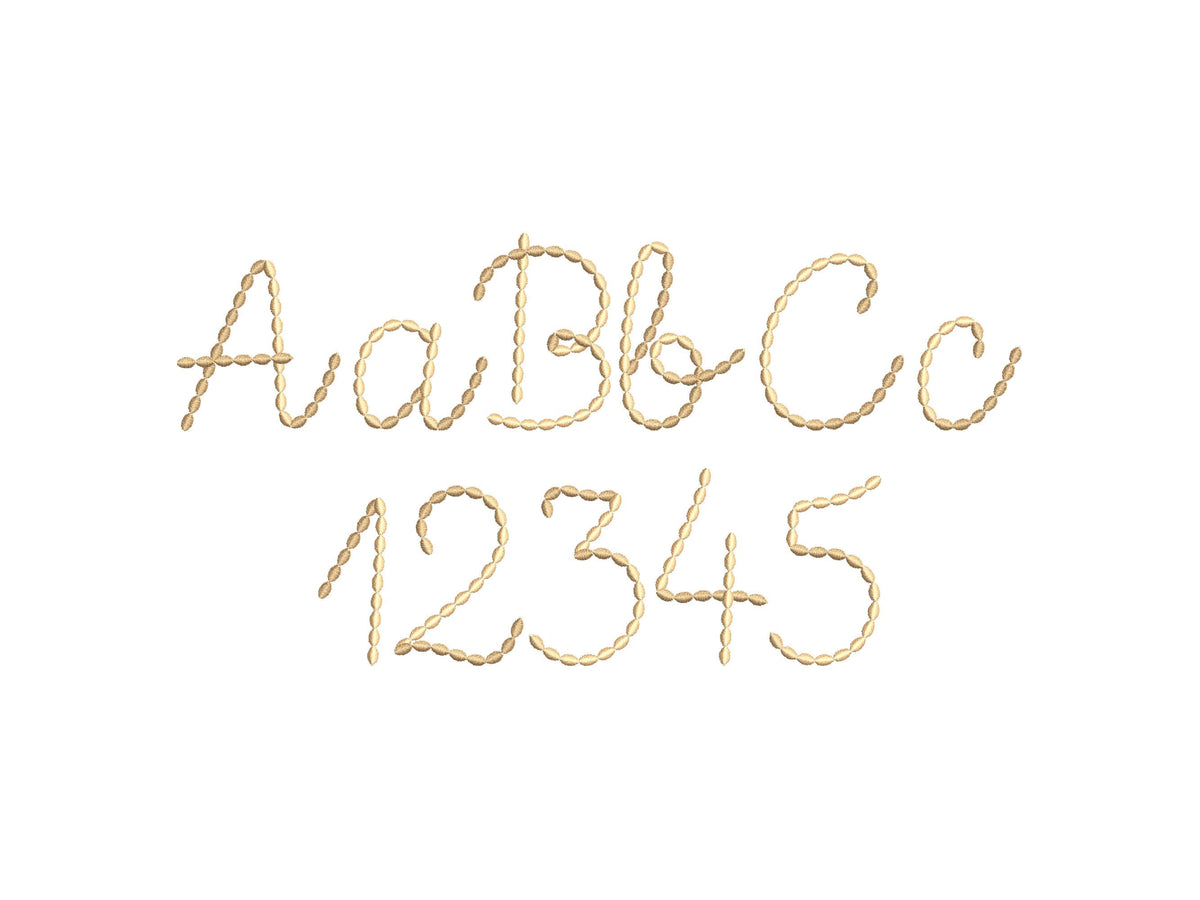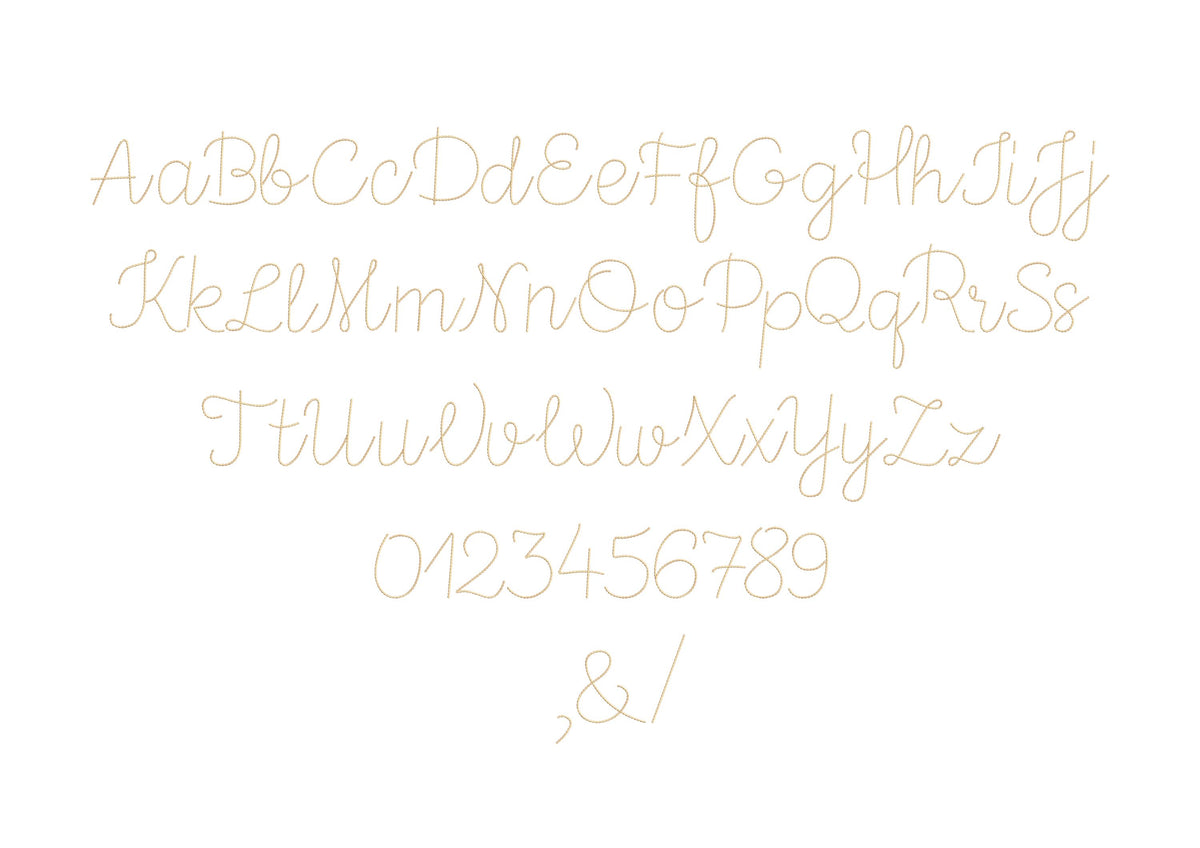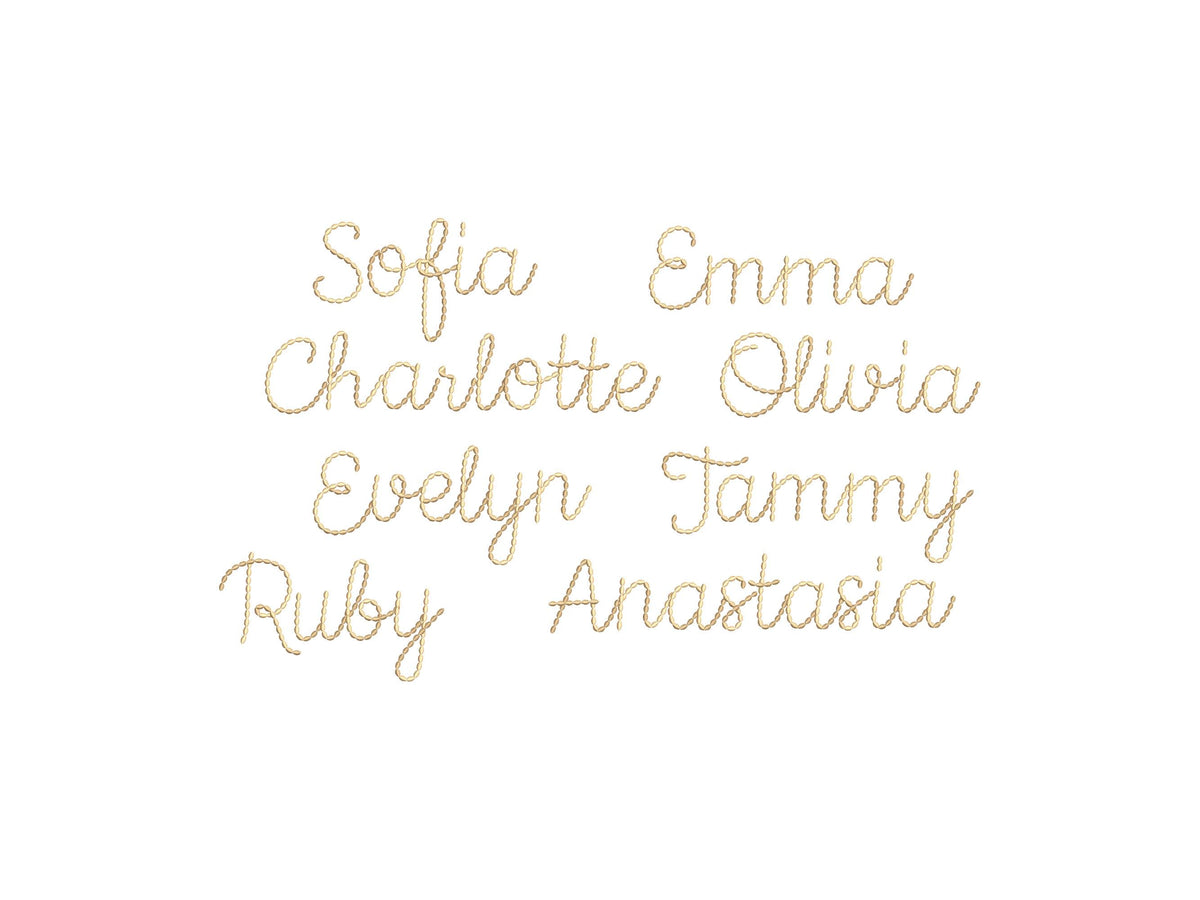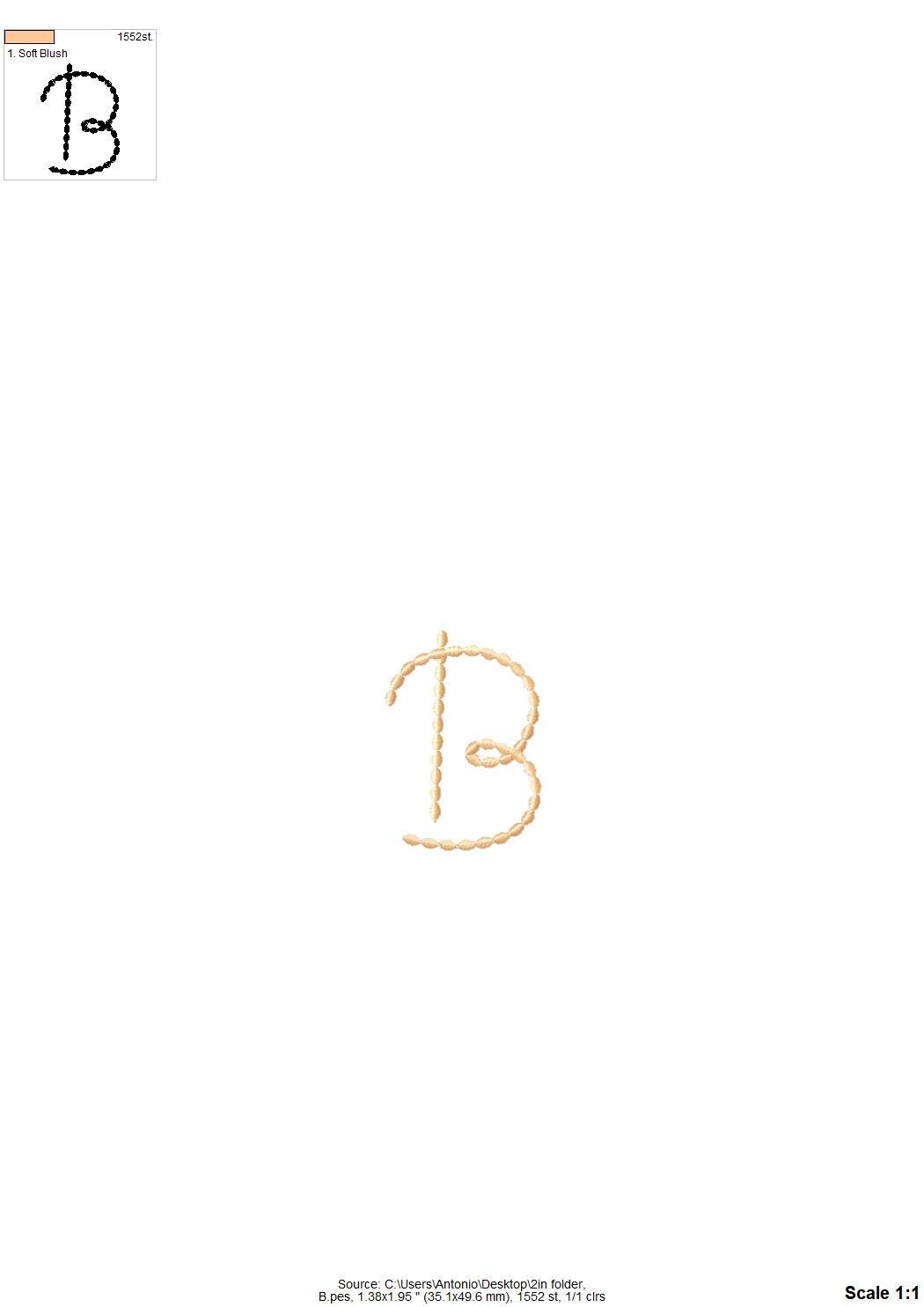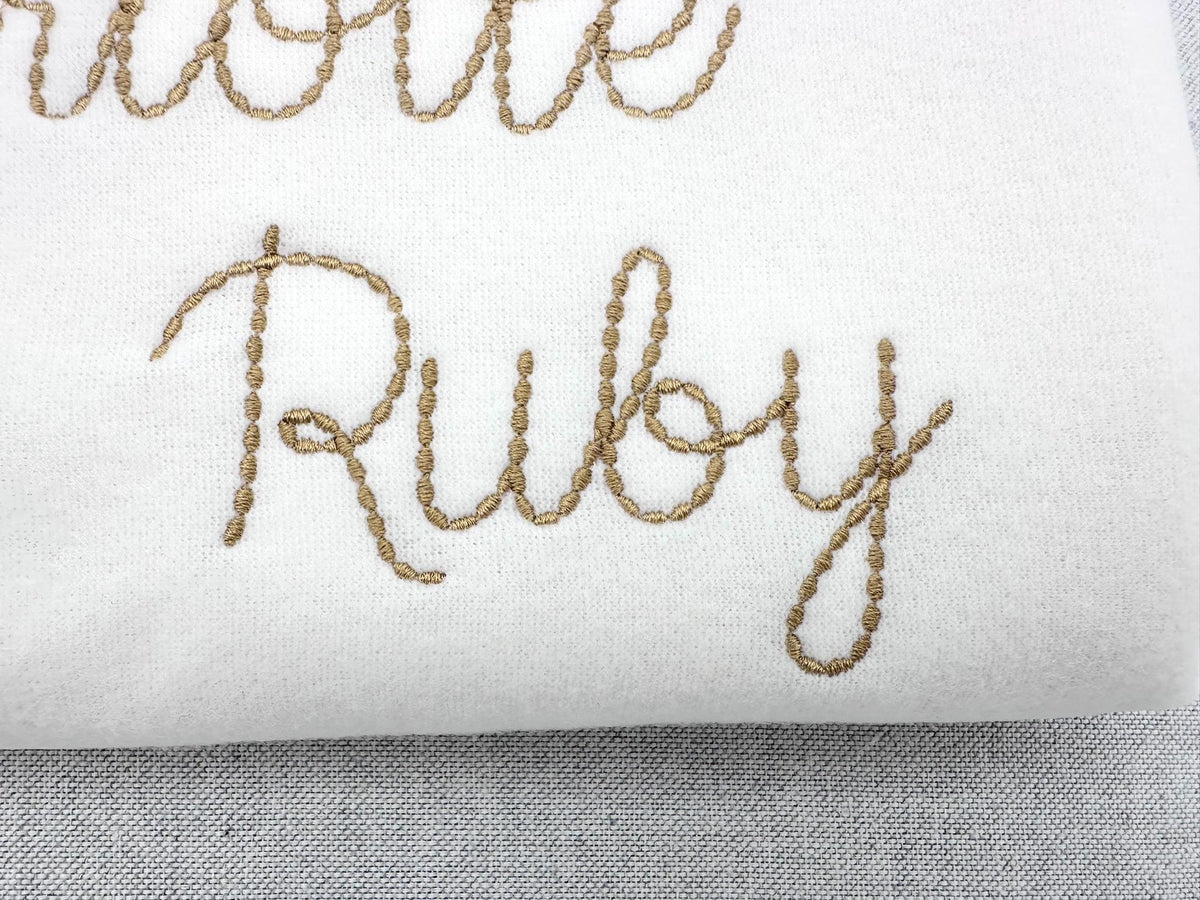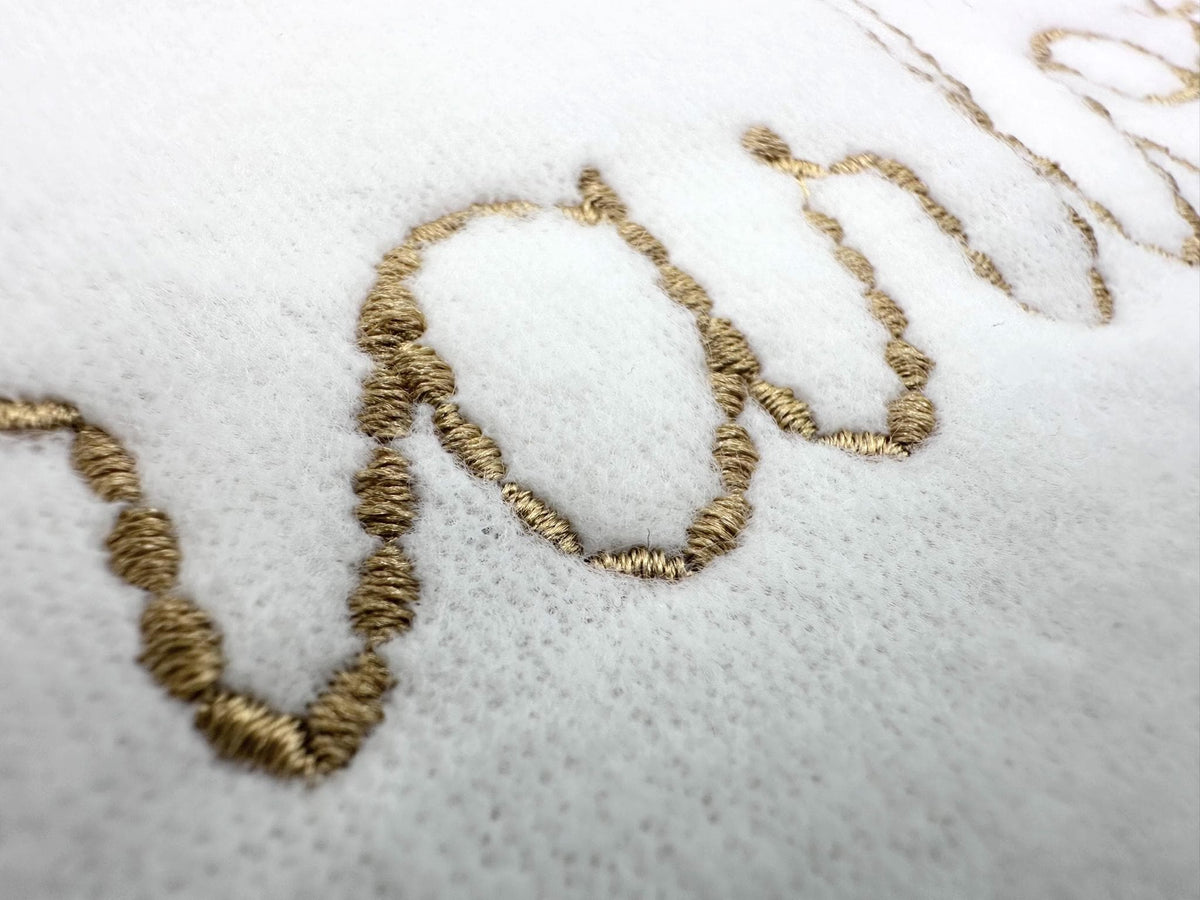
Needlework Script Font
The letters come in seven sizes: 1, 1.3, 1.7, 2, 2.5, 3 and 3.8 inches. A light stitch gives the script the look of hand embroidery. Includes uppercase and lowercase letters A to Z, numbers 0 to 9 and punctuation.
- Needlework hand stitch effect script font
- 7 sizes, 1 to 3.8 in